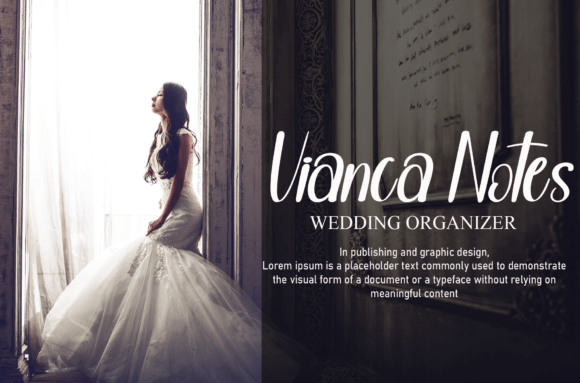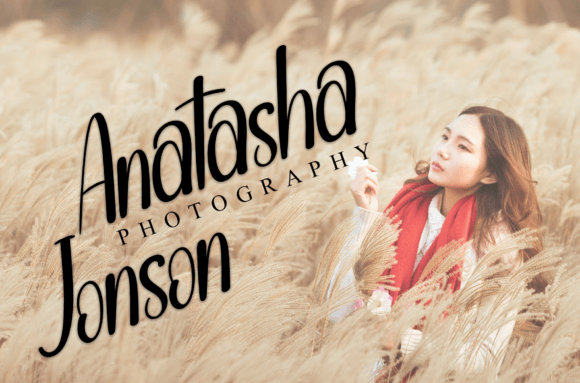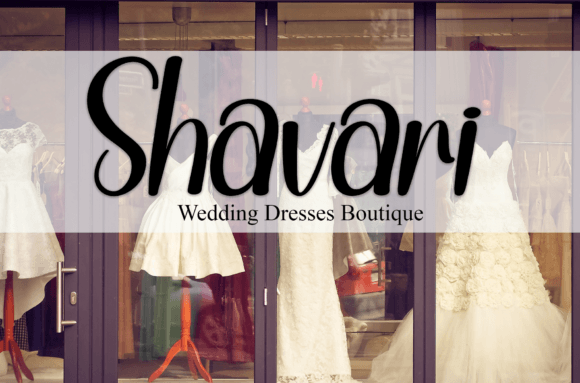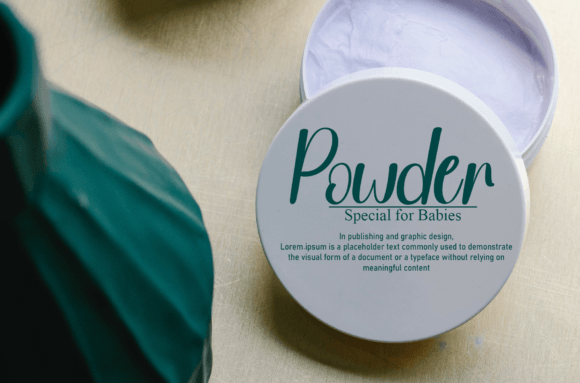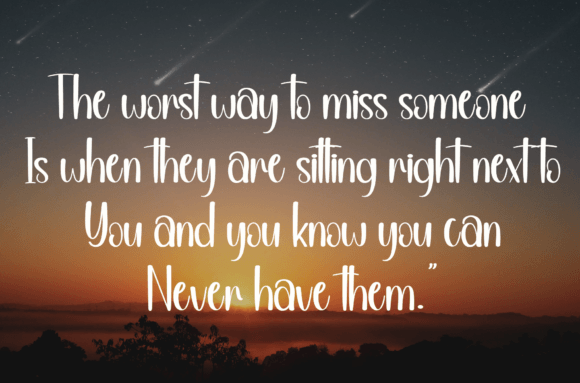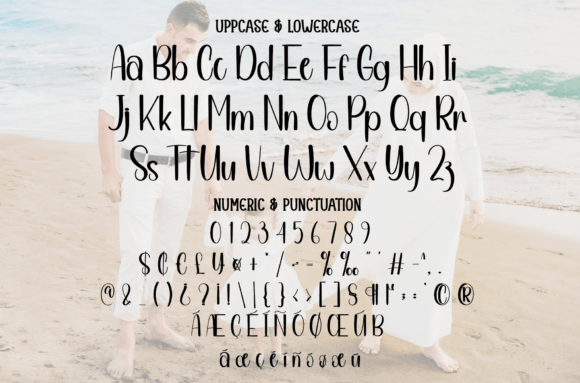
Introduction to Mother and Father Font
As I sat down to plan my best friend’s wedding, I knew I needed a special touch to make the invitation truly unique. I scrolled through my design resources, searching for the perfect font to capture the joy and love of the occasion. And then, I stumbled upon the Mother and Father Font – a sweet and friendly handwritten font that instantly made me smile. Its fresh and neat design was exactly what I needed to give my wedding invitation a fun and personal touch.
For designers, finding the right font can be a game-changer. It’s what sets a creative project apart from the rest and adds an extra layer of emotion to the design. The Mother and Father Font is a valuable resource for any designer looking to add a touch of warmth and personality to their work. And the best part? It’s available for free download, making it a high-quality design resource that won’t break the bank.
Key Features of Mother and Father Font
- High-quality, hand-drawn design resource ideal for creative projects, with a unique, whimsical style.
- Features a transparent background, allowing for easy integration with various design elements and backgrounds.
- Includes a range of characters, including uppercase and lowercase letters, numbers, and punctuation marks, making it suitable for a variety of creative projects.
- Designed with a clean and modern aesthetic, the Mother and Father Font is perfect for designers looking for a unique, high-quality design resource.
Honest Review: Mother and Father Font
I recently stumbled upon the Mother and Father Font, a beautiful and high-quality design resource that’s perfect for any creative project. The font is available for free download, which is always a bonus.
The Mother and Father Font features a unique and modern design, with clean lines and a transparent background. This makes it incredibly versatile and easy to use in a variety of applications.
- ✨ The font is highly customizable, allowing you to adjust the size, color, and style to fit your needs.
- ✨ The transparent background makes it easy to overlay text on images or other design elements.
- ✨ The font is highly legible, even at small sizes.
- ⚠️ The font may not be suitable for use in formal or professional settings, as it has a more casual and modern feel.
- ⚠️ Some users may find the font to be too minimalist or simple.
Overall, I’m really impressed with the Mother and Father Font. It’s a great resource for designers and creatives looking for a high-quality, free font to use in their projects.
The Mother and Father Font is a high-quality design resource that can elevate any creative project. It’s a free download that offers a unique and stylish look, perfect for designers and artists.
For the best results, use the Mother and Father Font in conjunction with other design elements that complement its style. Experiment with different font sizes and colors to create a unique look.
The Mother and Father Font is perfect for creative projects such as logos, business cards, and social media graphics. Its transparent background makes it easy to combine with other design elements, making it a versatile design resource.